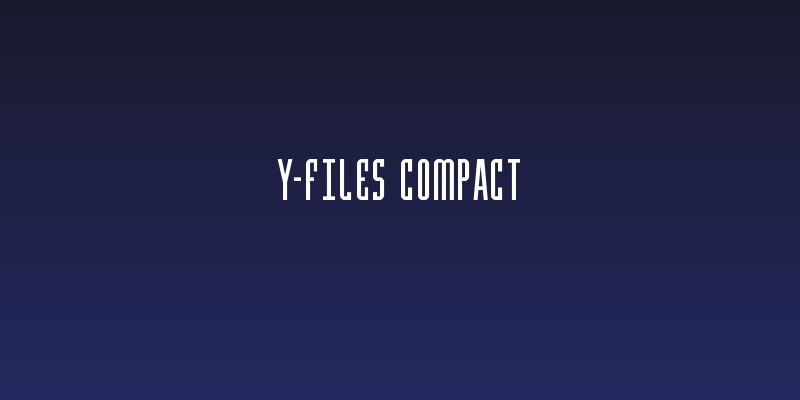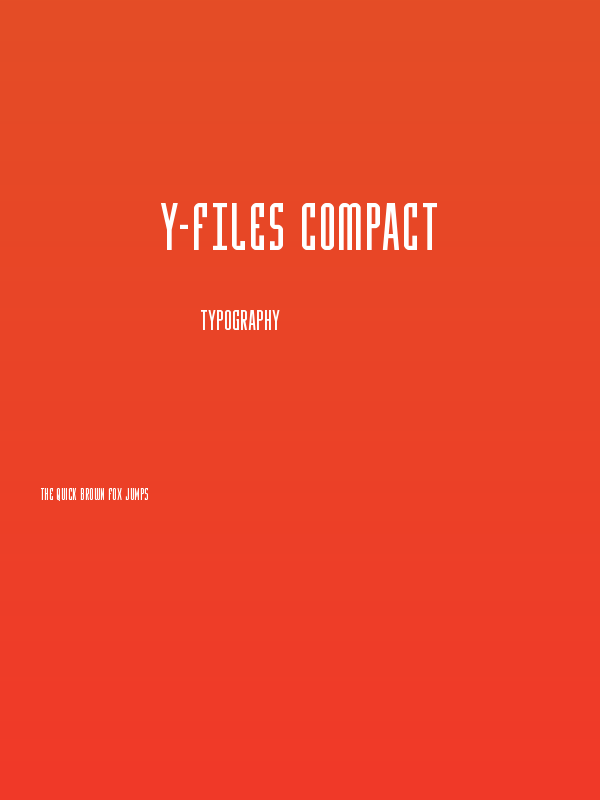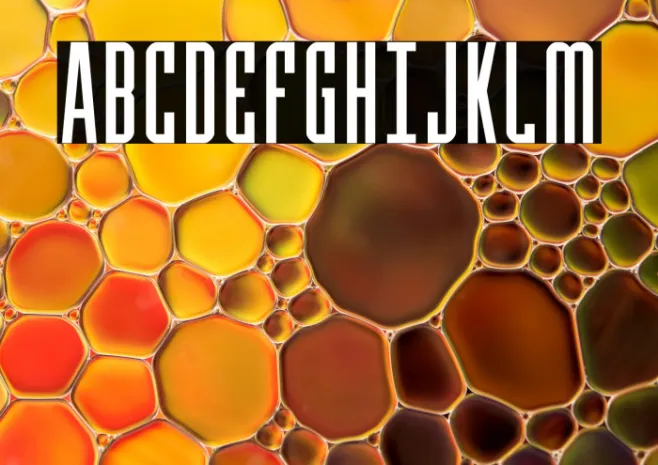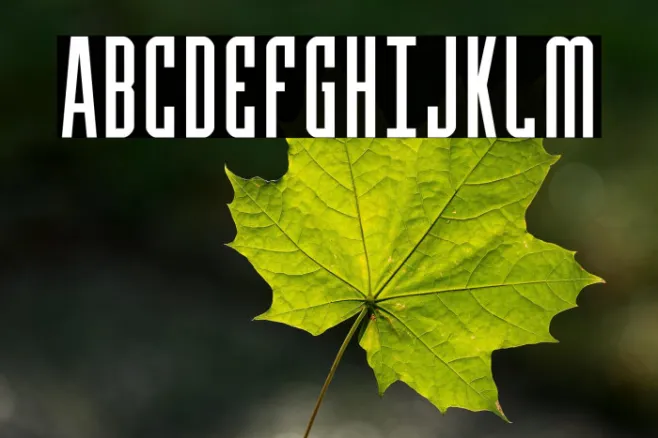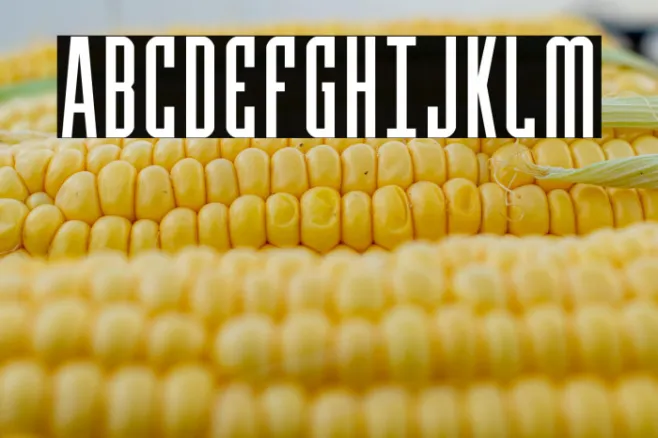
Y-Files Compact Font
Y-Files Compact Description
This font features a tall and narrow design, characterized by its condensed letterforms and uniform stroke width. The uppercase letters are particularly elongated, giving the font a sleek and modern appearance. The numbers and special characters maintain the same vertical emphasis, ensuring consistency across all characters. The font's clean lines and lack of serifs contribute to its contemporary style, making it suitable for various design applications where a bold and impactful look is desired.